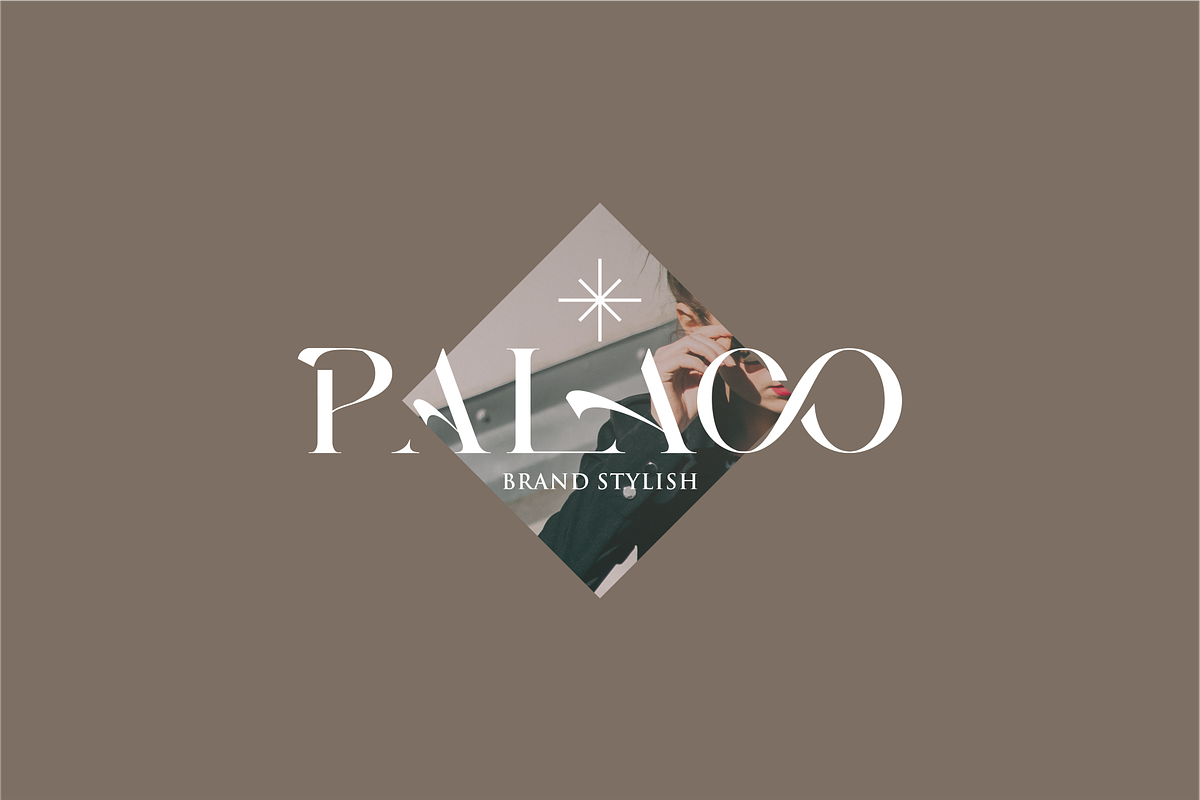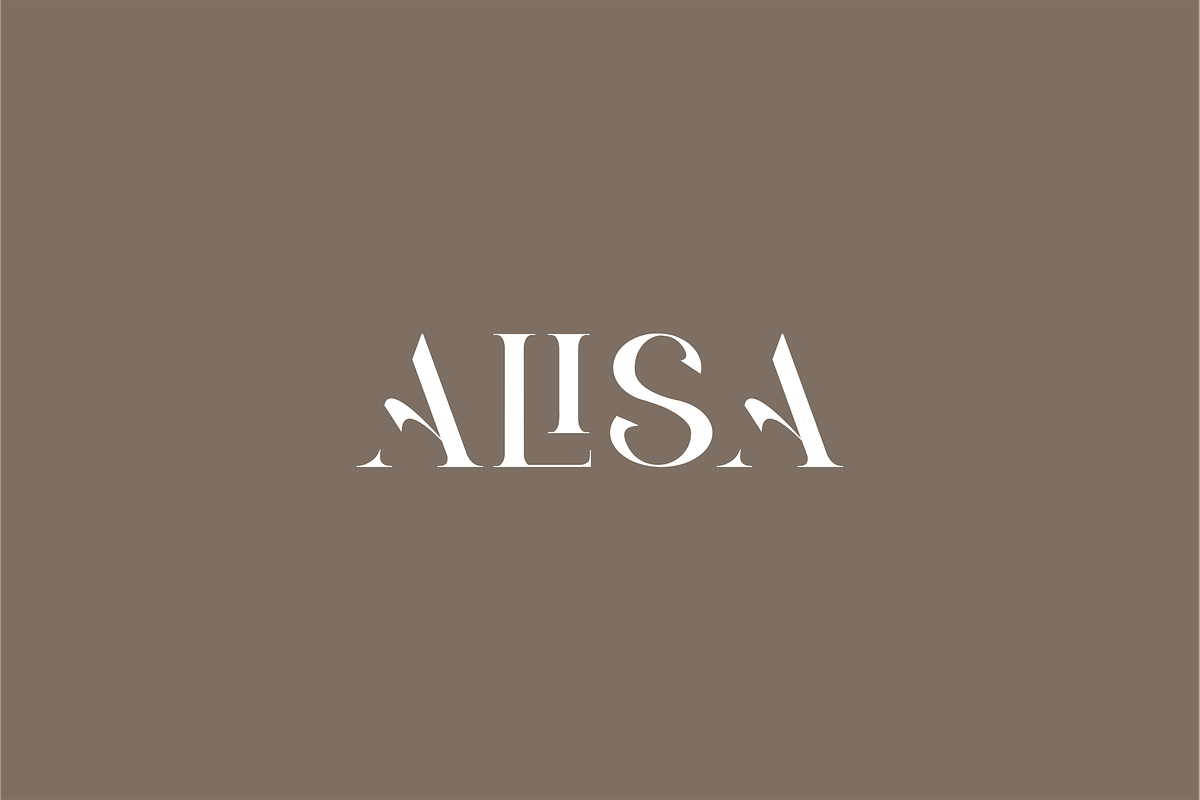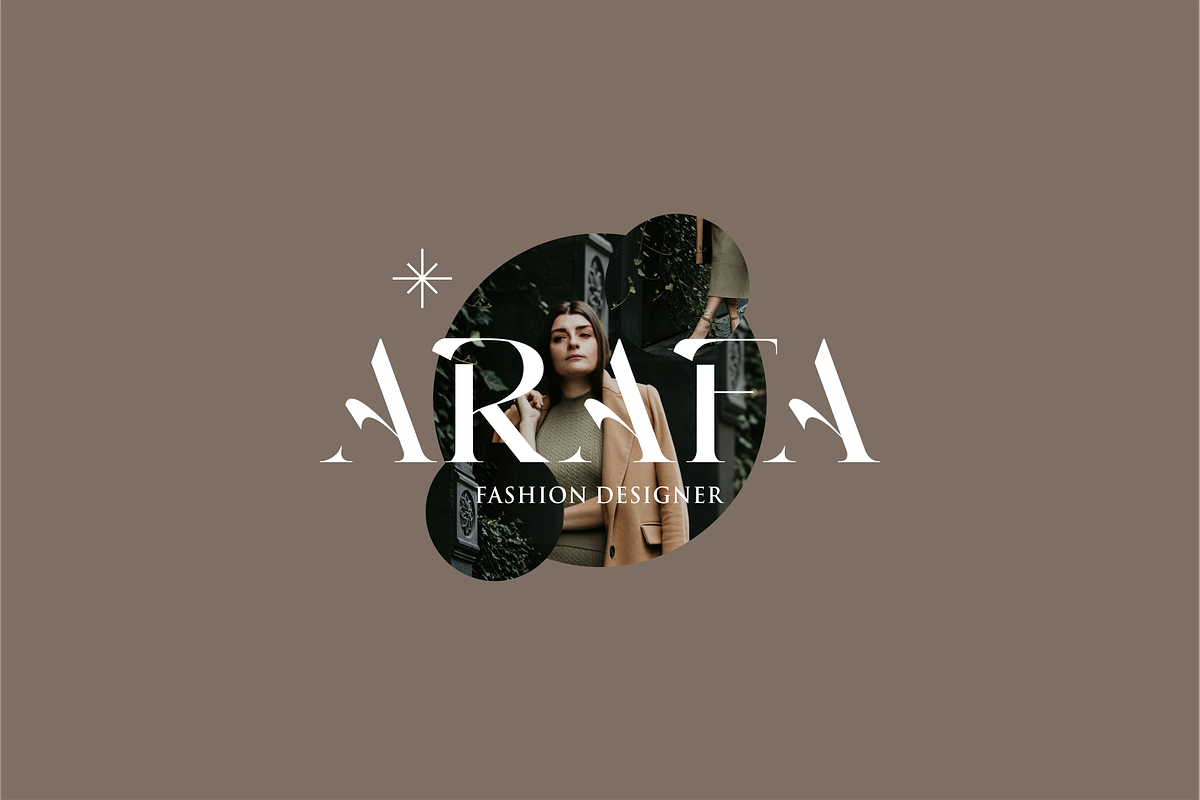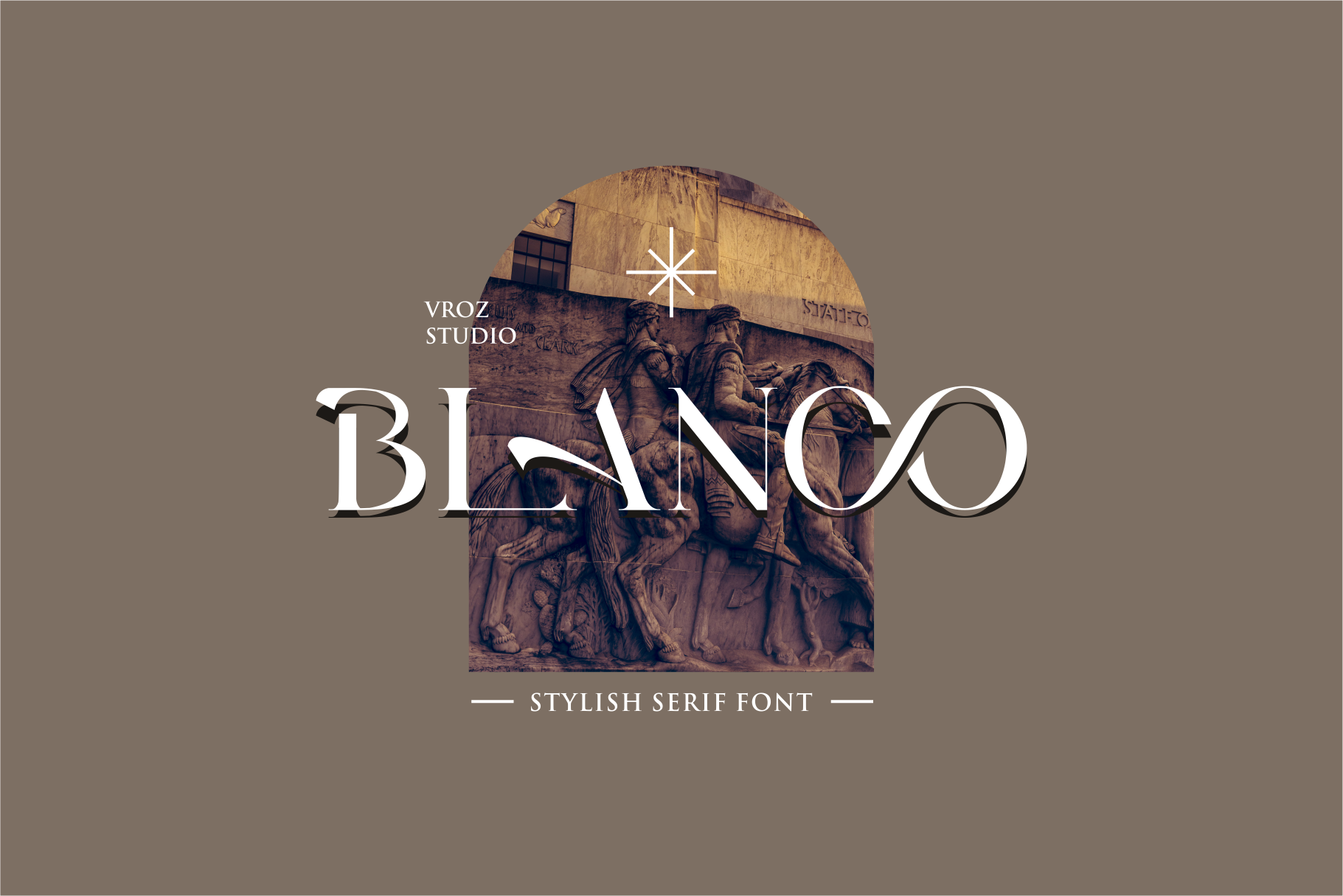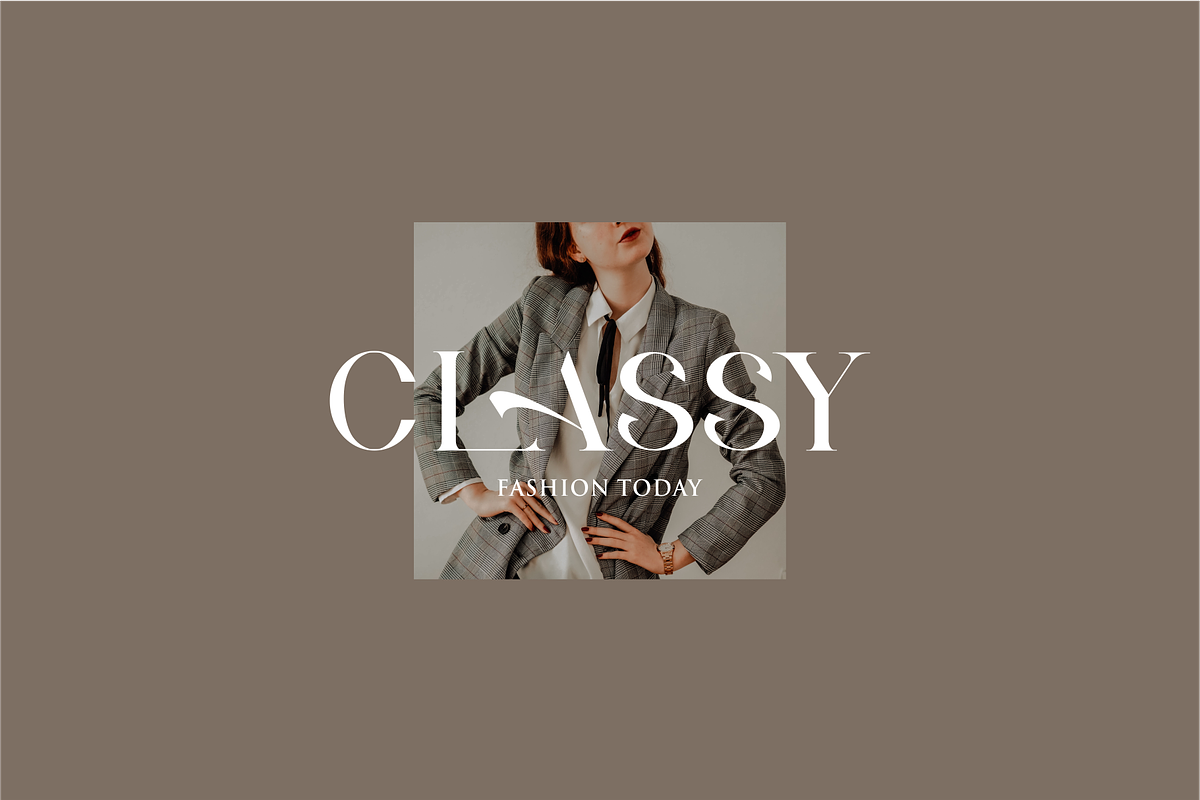
BLANCO - Stylish Serif Font
BLANCO is a modern stylish serif font
BLANCO will perfect for many project: fashion, magazines, logo, branding, photography, invitations, wedding invitation, quotes, blog header, poster, advertisements, postcard, book, websites, etc.